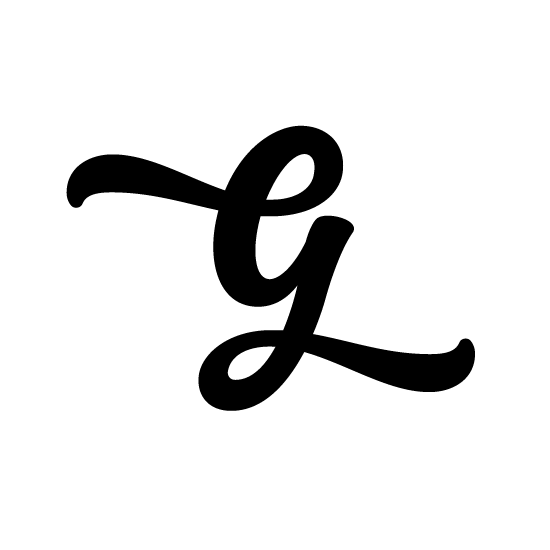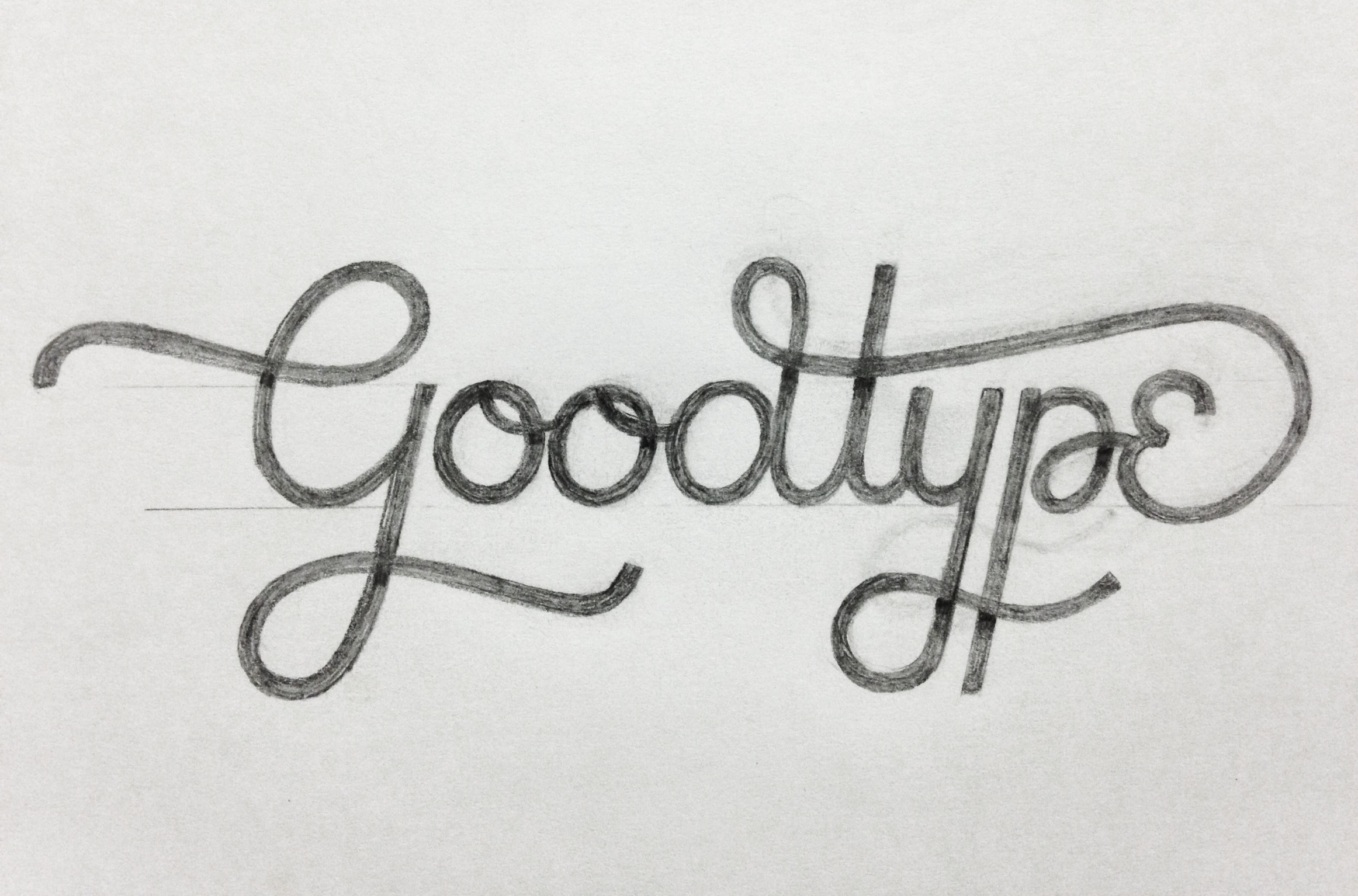
Lettering Legend - Brooke Bucherie (Goodtype) Interview
Lettering Legend - Brooke Bucherie (Goodtype) Interview - Lettering TutorialThis months 'Lettering Legend' Brooke Bucherie creator of Goodtype isn't primarily known for making hand lettering of her own. She is however known for curating lettering. If you've ever tried searching for lettering on Instagram, there is a pretty big chance you will have come across the amazing Brooke Bucherie's Goodtype Instagram account. Brooke has built a tremendous collection of lettering work that she has found across the internet and shared. The Goodtype Instagram account features over 1000 pieces of lettering, and provides an amazing resource of lettering inspiration.
Brooke has a graphic design background, and has dabbled in a bit of hand lettering herself. Recently she launched a Kickstarter campaign to raise funds for a new lettering book, Goodtype Volume One. Last months 'Lettering Legend' was Dominique Falla, founder of the Typism book series. So in this interview with Brooke, it seemed fitting to ask how the two books differ. The interview covers a lot more too, including how Goodtype got started, an up and coming Goodtype scholarship, and tips on how to get your work noticed for curation.
You’re known for finding hand lettering and creating great resources, have you ever tried hand lettering yourself and if so how did it go?
"I wouldn't consider myself a letterer but as a graphic designer, I've had to do a few lettering pieces. I must say, I quite enjoyed the outcome. However, I enjoyed the process much more. The script "Goodtype" word logo was hand lettered by me."
How did you first get started with finding and sharing lettering online?
"I've always admired the art of lettering and typography. In the past, I would snap photos of inspiring lettering that would cross my path from time to time. Soon I began noticing really cool letting and type pieces showing up on Instagram. I began saving screen shots of my favorite lettering and type samples. Pretty soon, I had so many stored on my phone that I began running out of room. I thought to myself, I must keep these awesome pieces somewhere. I didn't want to lose them. So I decided to start an Instagram account and unload all my findings. I made sure to tag the artist- if I knew who they were. And so it began."
Over the past couple of years you’ve seen thousands and thousands of lettering work. It must be near impossible to decide, but do you have a single favourite lettering piece, or favourite lettering artist?
"That's a tough one. I love so many styles. I don't think I love one more than the other. I love flourishes, I love stippling, I love a clean sans serif, I love heavy swashes. The list goes on. I definitely don't have one single favorite artist. I have very, very many. To name a very few, Raul Alejandro, Ryan Hamrick, Xavier Casalta, Remy Boire, Simon Walker, Patrick Cabral, Anthony Hos and the list goes on!"
There are only a handful of curated lettering books around. Not too long ago I interviewed Dominique Falla the founder of one of these books. Recently you launched a curation book of your own through a Kickstarter campaign, the Goodtype book. How does the Goodtype book differ from Dominique’s Typism book series? Does it have a different theme or does it provide another fresh selection of amazing lettering work like Typism?
"That's a great question. I haven't had the opportunity to flip through the pages of one of the Typism books. From what I can tell from the photos I've seen, it features beautiful, finished black and white pieces. It is very aesthetically pleasing. I'm not sure how big it is or how many artists it features? Goodtype The Book Volume One is a 288 page hard back of various kinds of letterforms from 175 artists worldwide. It features the work in progress sketch and the final piece. There are a couple pieces in the book that don't follow the traditional "hand lettering" process. These final pieces were generated in Cinema 4D and are really cool! The Goodtype book features short interviews with Roxy Prima, David Salinas, Criatipos, Vincent de Boer, Nim Ben-Reuven and the legendary Tony DiSpigna. There is also a wonderful article explaining the difference between lettering and typography written by Joseph Alessio."
On your website you have briefly talked about the ‘Stay Sharp Scholarship’, a scholarship for designers. Can you tell us a little more about it? Is it suitable for hand letterers or aimed at graphic designers?
"The Stay Sharp Scholarship will aid present and future designers. It will be aimed toward all graphic designers- not specifically letterers. One dollar from each book sold will go directly toward the fund. We will announce how much the book raised for the scholarship in November. At this time, we will also be releasing details on eligibility and how to apply. It is our hopes to award the funds for the Spring 2016 semester.  The Stay Sharp logo was designed by the incredibly talented Scotty Russell."